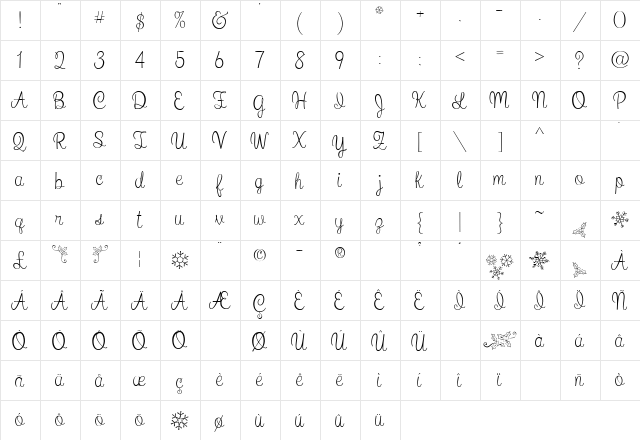
What I Want For Christmas Regular
What I Want For Christmas is a composed and adaptable typeface that performs quietly and consistently across a wide range of design contexts.